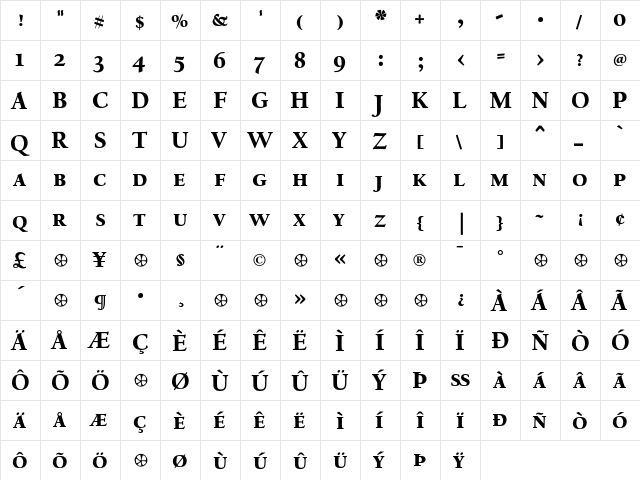
CalifornianText BoldExpert
Design Context for CalifornianText Typeface
CalifornianText is a composed and adaptable typeface that performs quietly and consistently across a wide range of design contexts. Its bold stroke weight gives it real presence on the page.